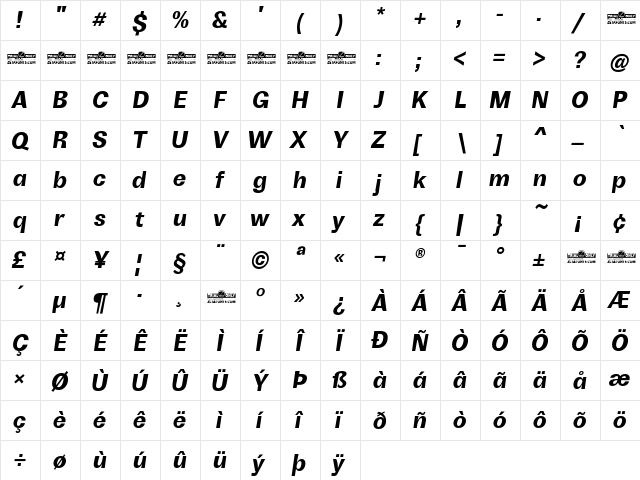
Boring Sans B Trial Bold Italic
Bold Italic · Zetafonts Cosimo Lorenzo Pancini ·
Design Context for Boring Sans B Trial Typeface
Boring Sans B Trial offers clean, dependable letterforms without strong stylistic allegiance, making it a practical choice for designers who need flexibility. The slanted form adds forward momentum and visual energy. Its bold stroke weight gives it real presence on the page.